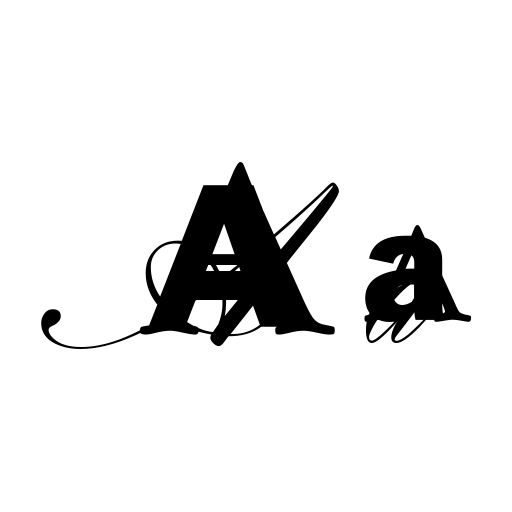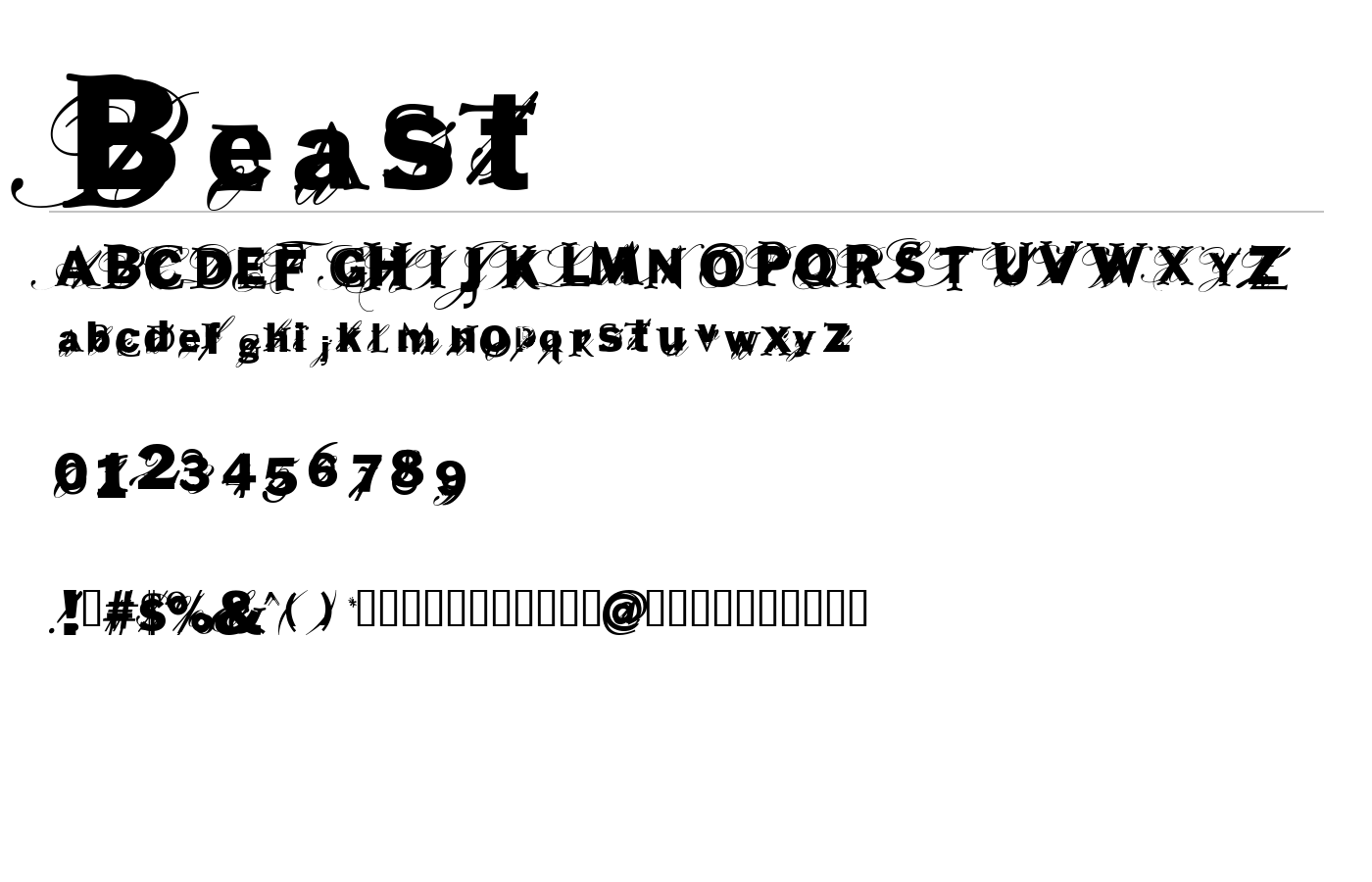
Beast Font is a bold serif typeface with a strong, dramatic presence characterized by high contrast between thick and thin strokes and ornate, calligraphic swashes that add a sense of wild elegance. Its unique blend of sharp serifs, playful curves, and striking details make it ideal for eye-catching headlines, logos, and creative projects that seek to convey power and artistic flair. This font works best where bold statement and decorative impact are desired, such as fashion branding, posters, and editorial headings.
Beast Font
About Beast Font